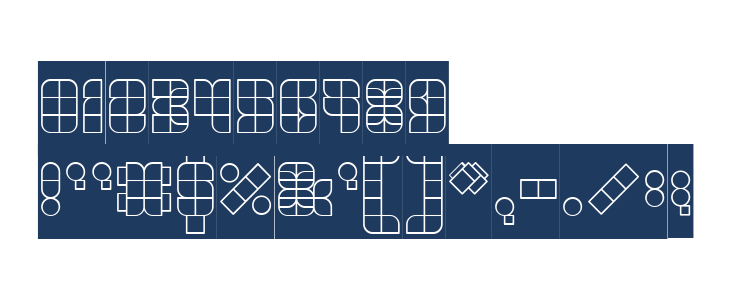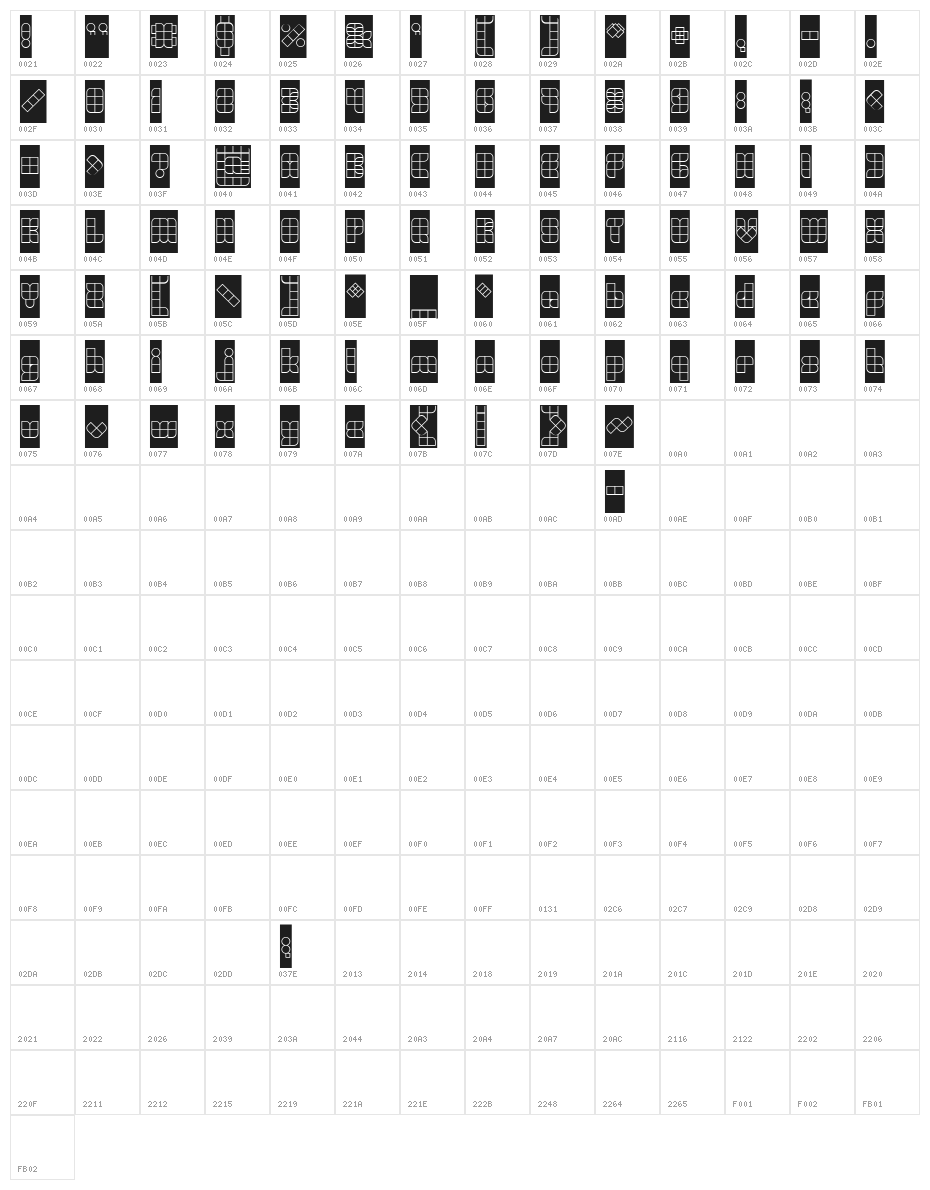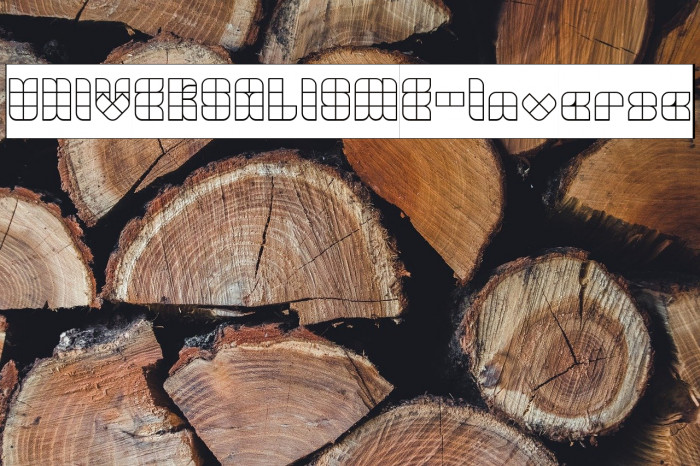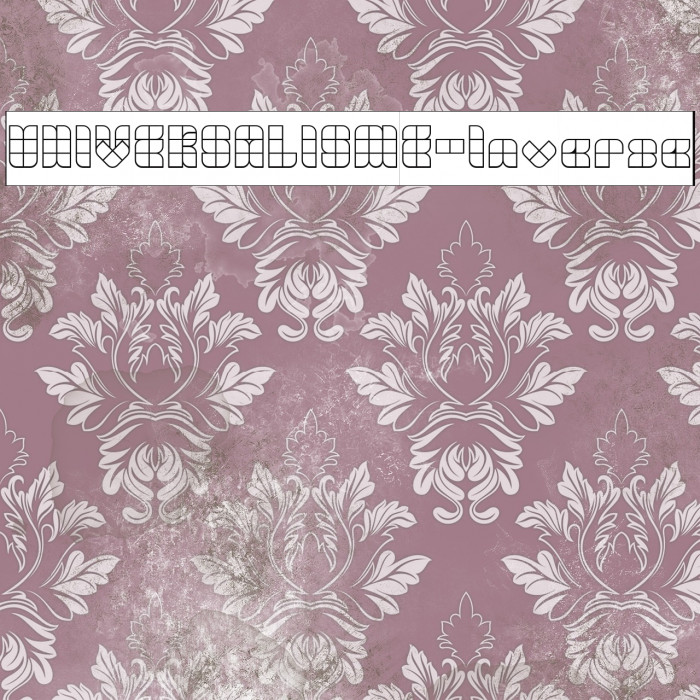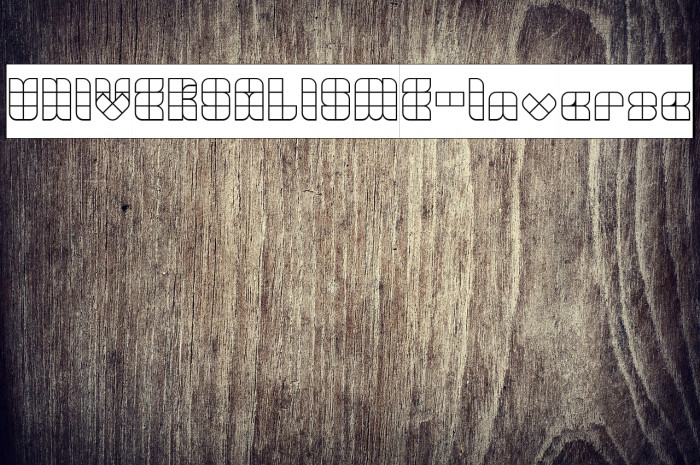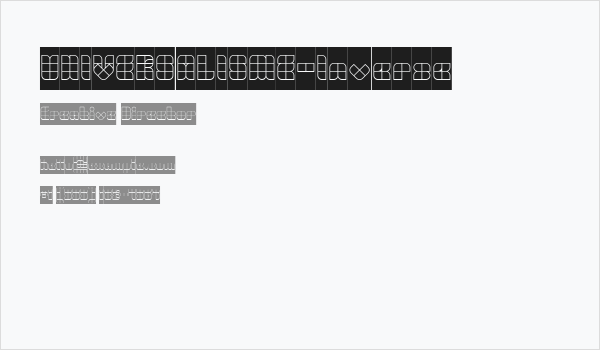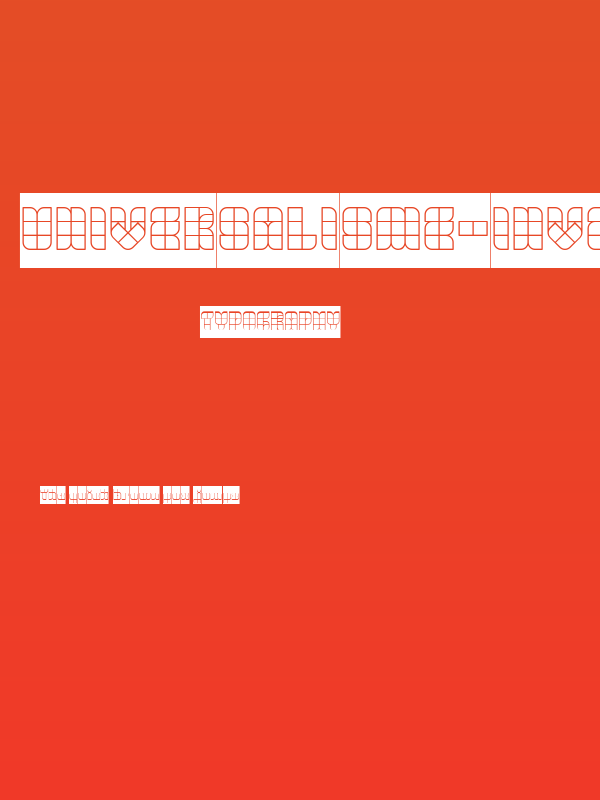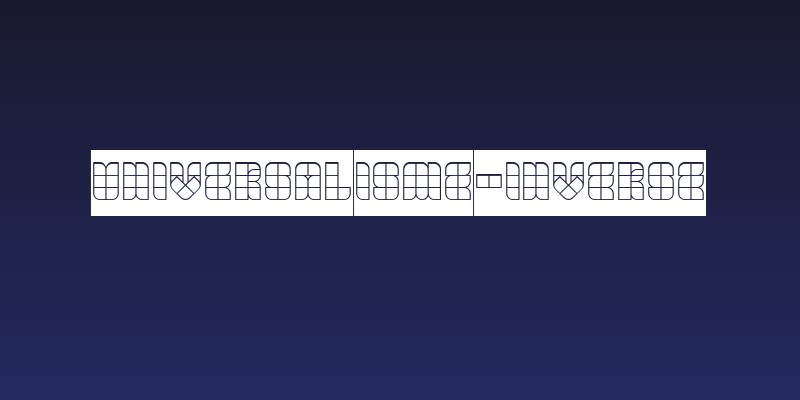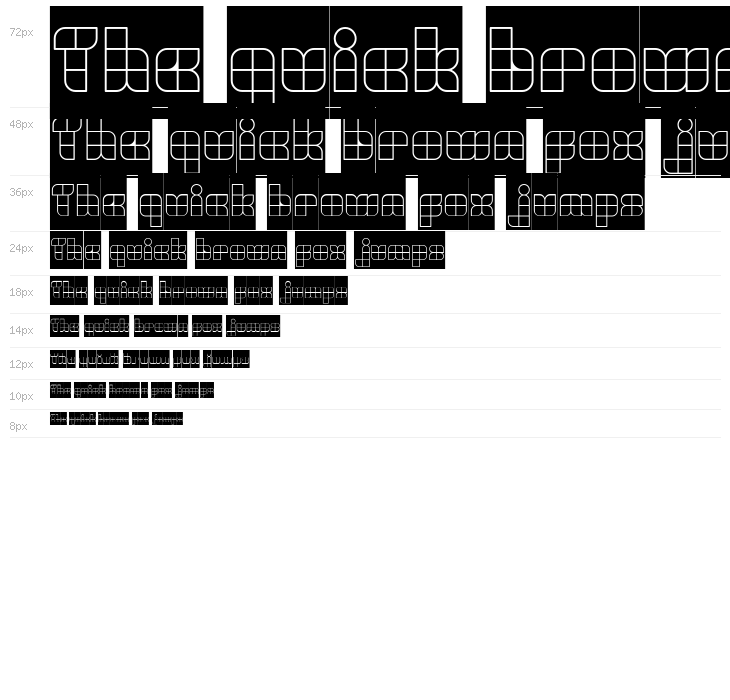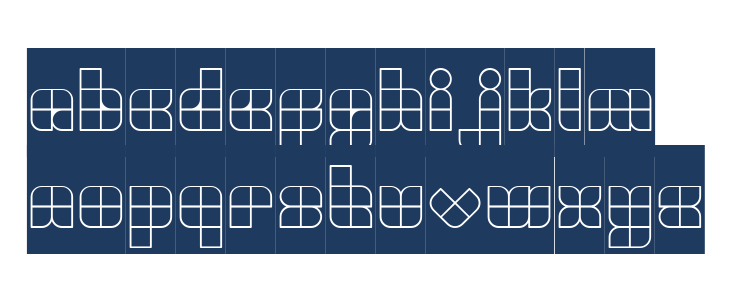
UNIVERSALISME-Inverse Font
UNIVERSALISME-Inverse Description
This font features a unique and modern design with a geometric and grid-like structure. Each character is composed of interconnected lines and curves, forming a distinct pattern that resembles a maze or circuit board. The letters are uniform in height and width, creating a cohesive and balanced appearance. The use of negative space within the characters adds an intriguing visual element, making the font stand out. It is highly stylized and decorative, suitable for creative and artistic projects that require a futuristic or technological aesthetic.
| Use Case | Logos, Headlines, Posters |
| Proposed Projects | Ideal for technology-themed designs, futuristic branding, digital art projects, and creative posters. |